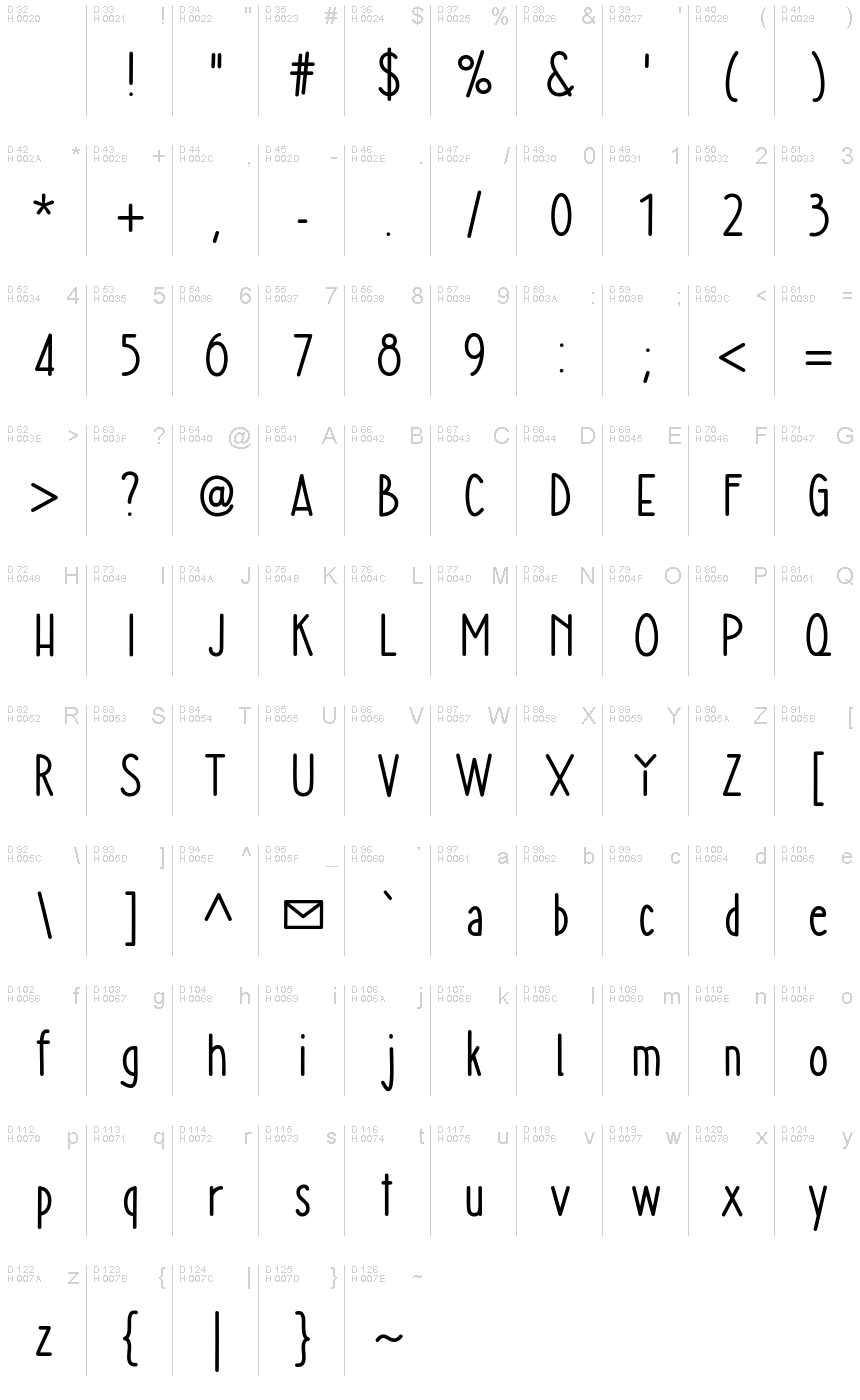
Neue Mail Medium
Neue Mail Medium, crafted by Only Fonts, exudes a captivating blend of retro charm and modern precision. This condensed display font's lowercase letters emanate a steampunk-inspired flair, transporting the viewer to an era of personal touch. In contrast, the uppercase characters maintain a crisp, clean linearity, creating a harmonious fusion of styles.
The font's unique character designs tell a compelling story, evoking a sense of nostalgia with a contemporary edge. Neue Mail Medium seamlessly integrates vintage aesthetics and contemporary sensibilities, making it a versatile choice for a wide range of design applications. Its versatility shines in branding, editorial layouts, and even packaging, where the font's distinct personality can add a touch of timeless allure to any project.